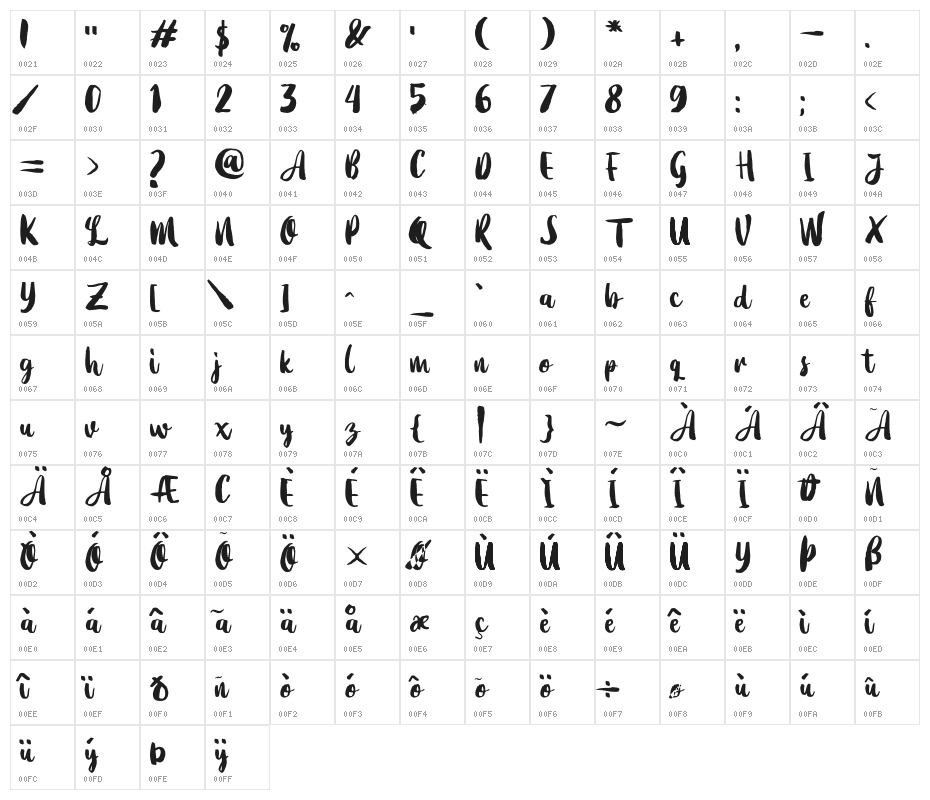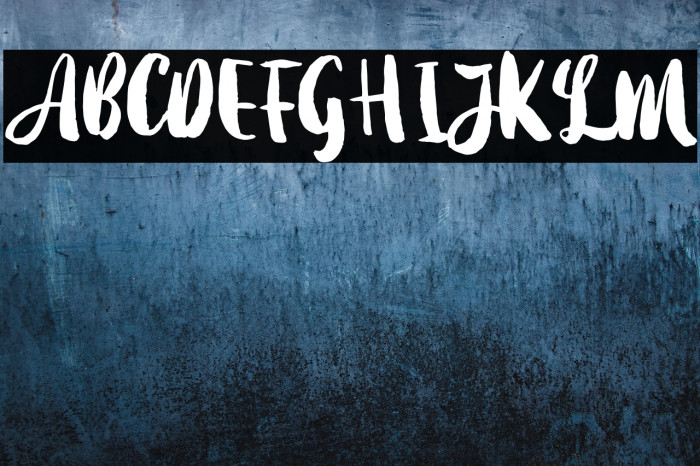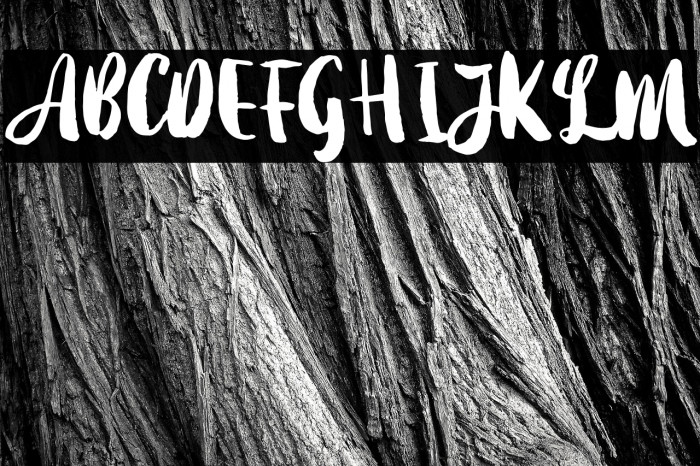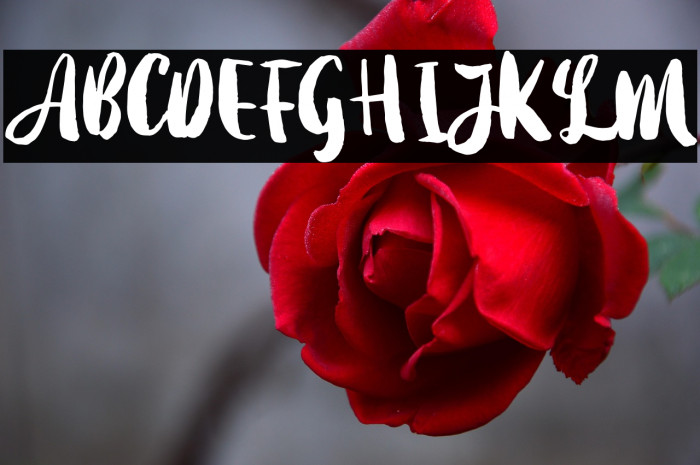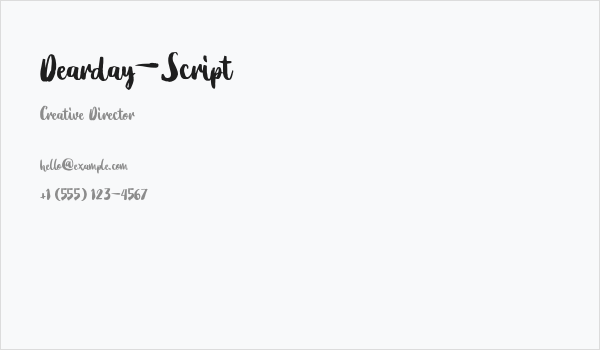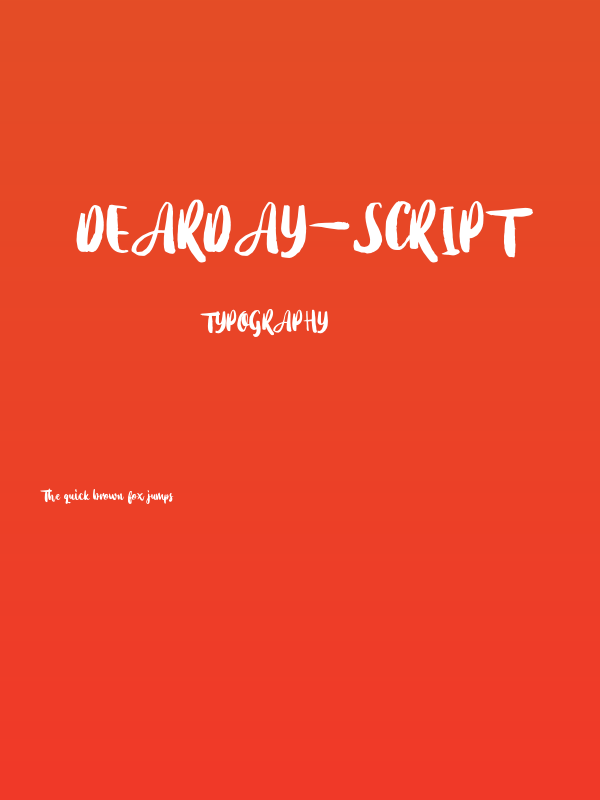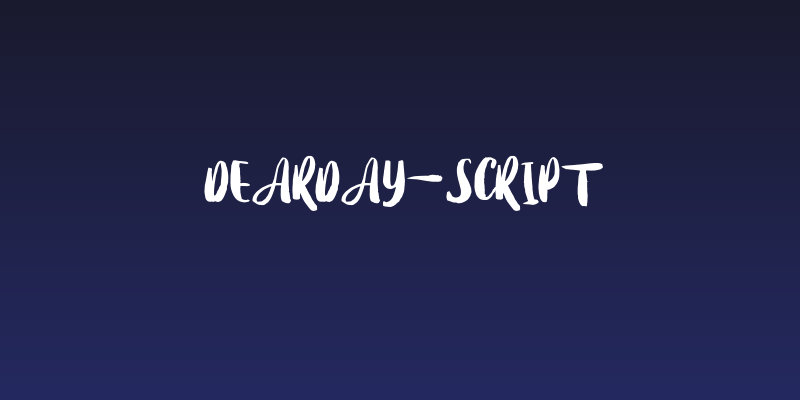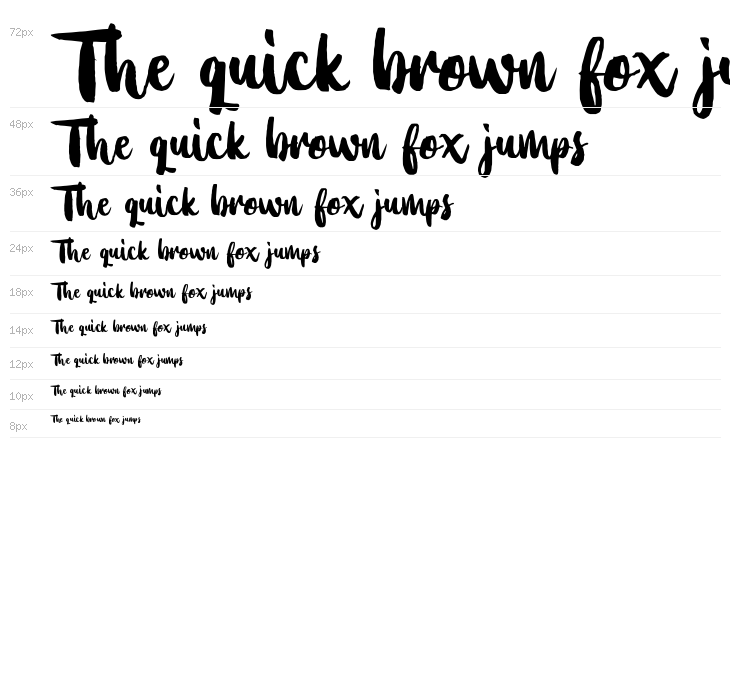
Dearday-Script Font
Dearday-Script Description
This font features a bold and expressive script style, characterized by its fluid and dynamic strokes. The letters have a hand-painted appearance, with varying thickness that adds a sense of movement and energy. The uppercase letters are particularly striking, with dramatic flourishes and a slightly irregular baseline that enhances the handcrafted feel. The lowercase letters maintain a consistent style, complementing the uppercase with their own unique flair. Numbers and special characters are equally bold, ensuring readability while maintaining the artistic aesthetic. This font is ideal for projects that require a personal touch, such as invitations, branding, and artistic designs.
| Use Case | Headlines, Logos, Artistic designs |
| Proposed Projects | Ideal for invitations, branding, artistic designs, and any project needing a personal touch. |